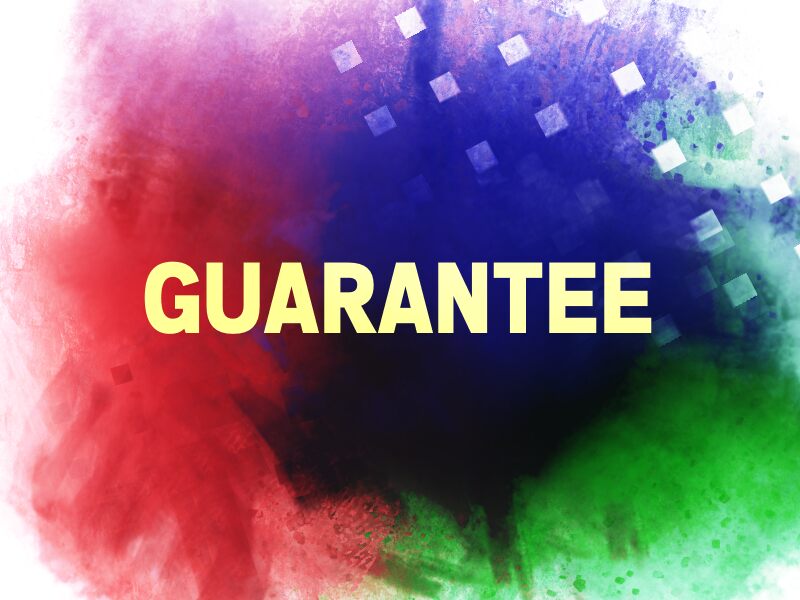
GUARANTEE
Guarantee is a bold, sans-serif font crafted by designer wep. Its striking letterforms exude a sense of modern authority and confidence. The geometric shapes and clean lines create a sleek, minimalist aesthetic, while the robust weight lends an air of solidity and reliability. This font's unique blend of simplicity and strength makes it an engaging typographic choice for a wide range of design applications.
Guarantee's versatility shines through its adaptability to diverse projects. Its bold presence commands attention, making it an excellent selection for headlines, logos, and impactful branding. Additionally, the font's legibility and clarity make it well-suited for digital interfaces, signage, and editorial layouts that require a powerful, no-nonsense aesthetic.